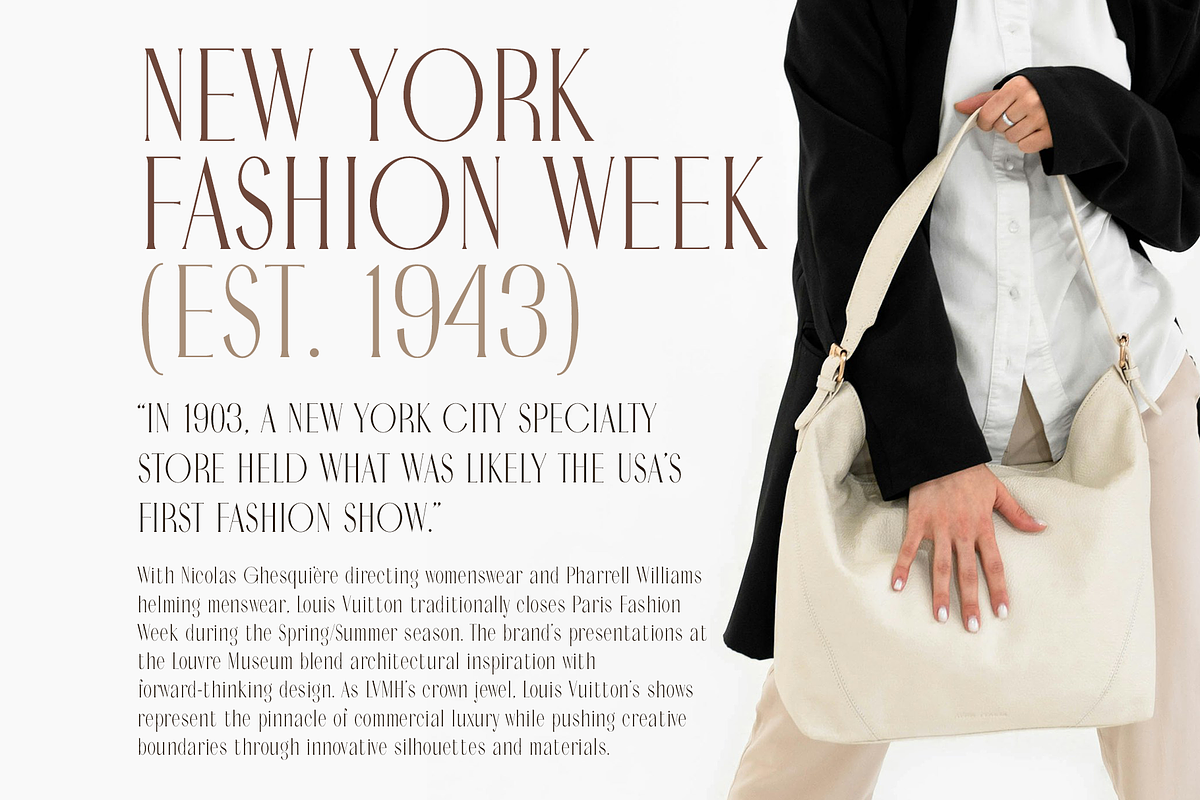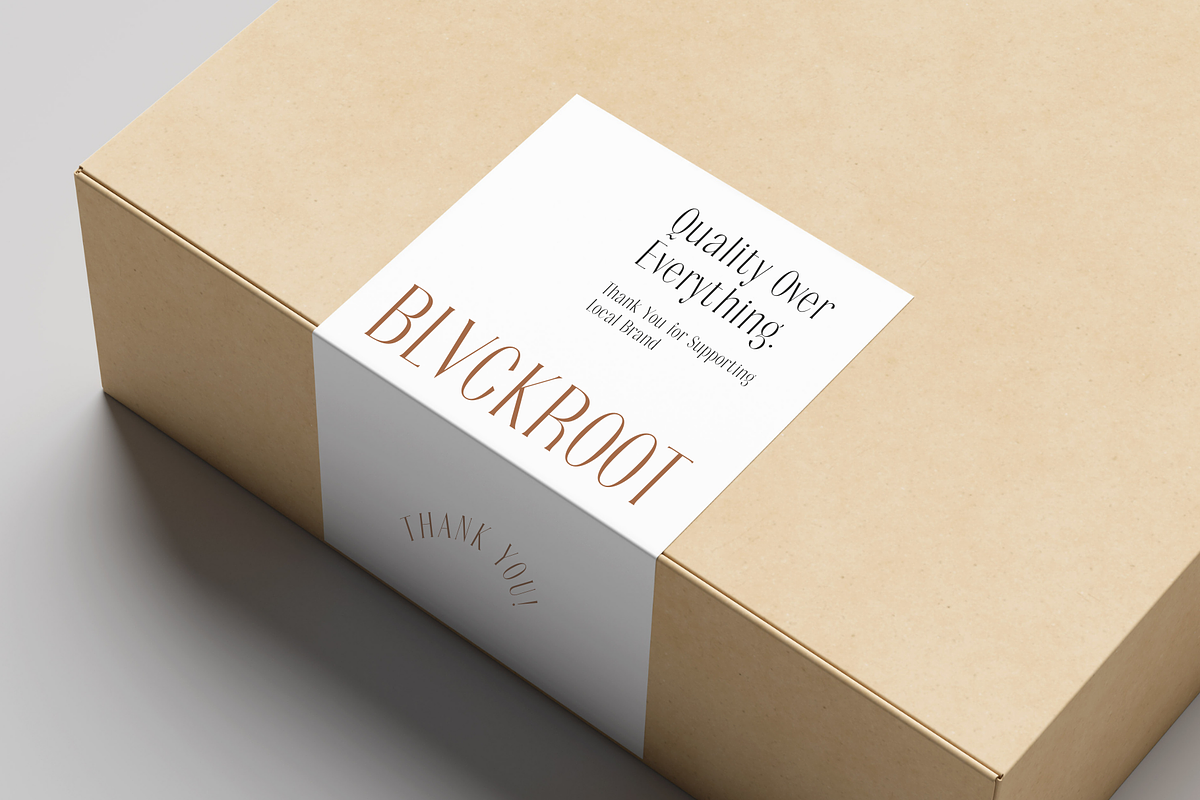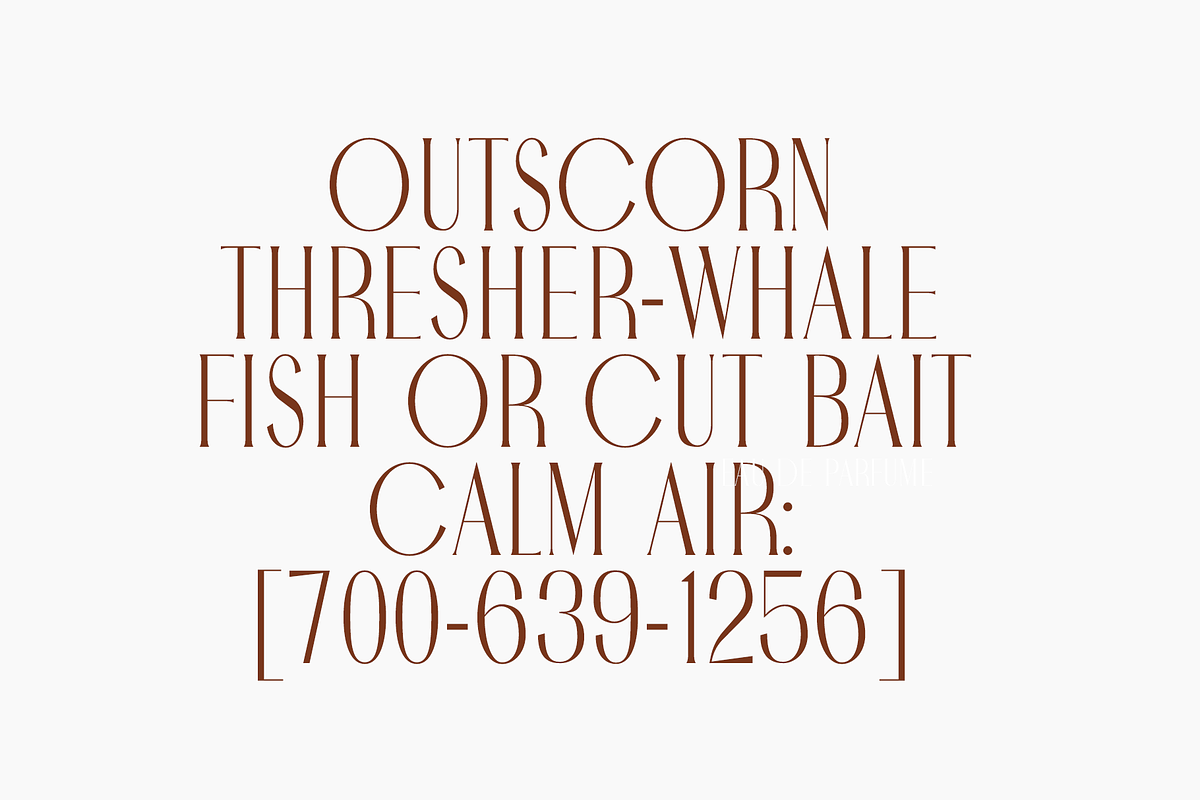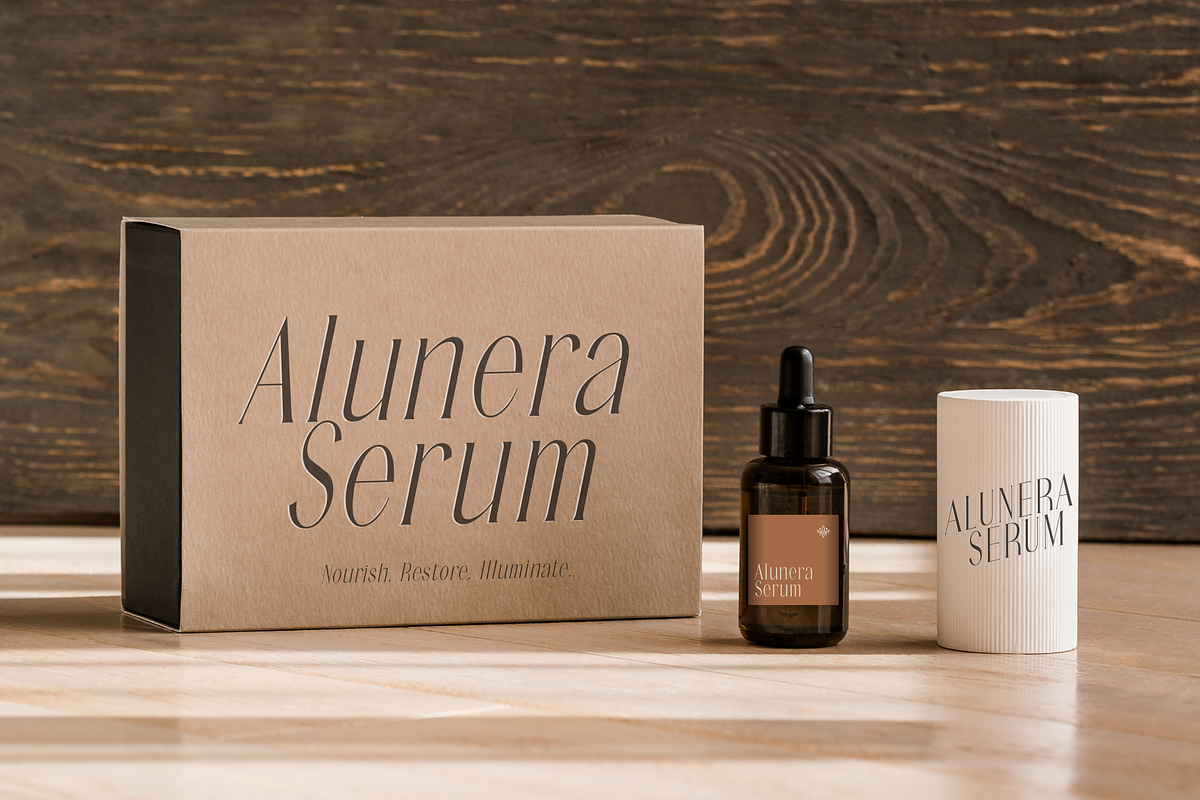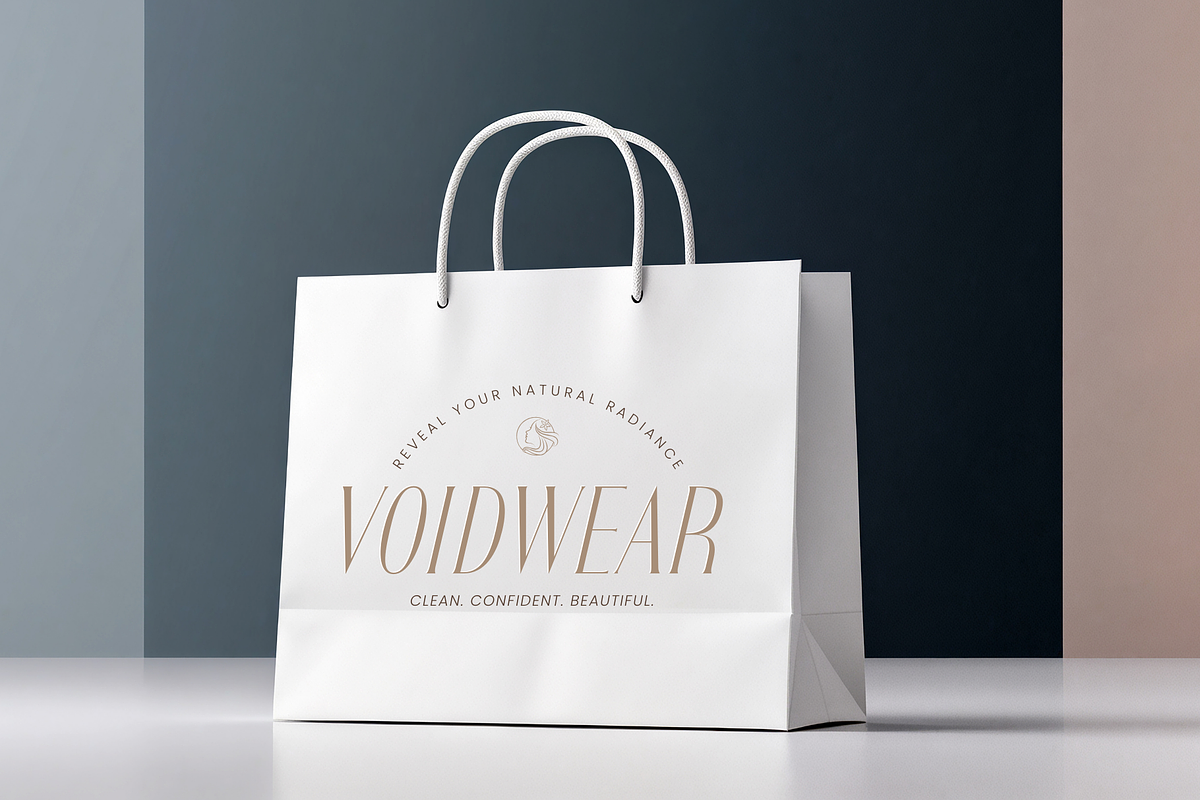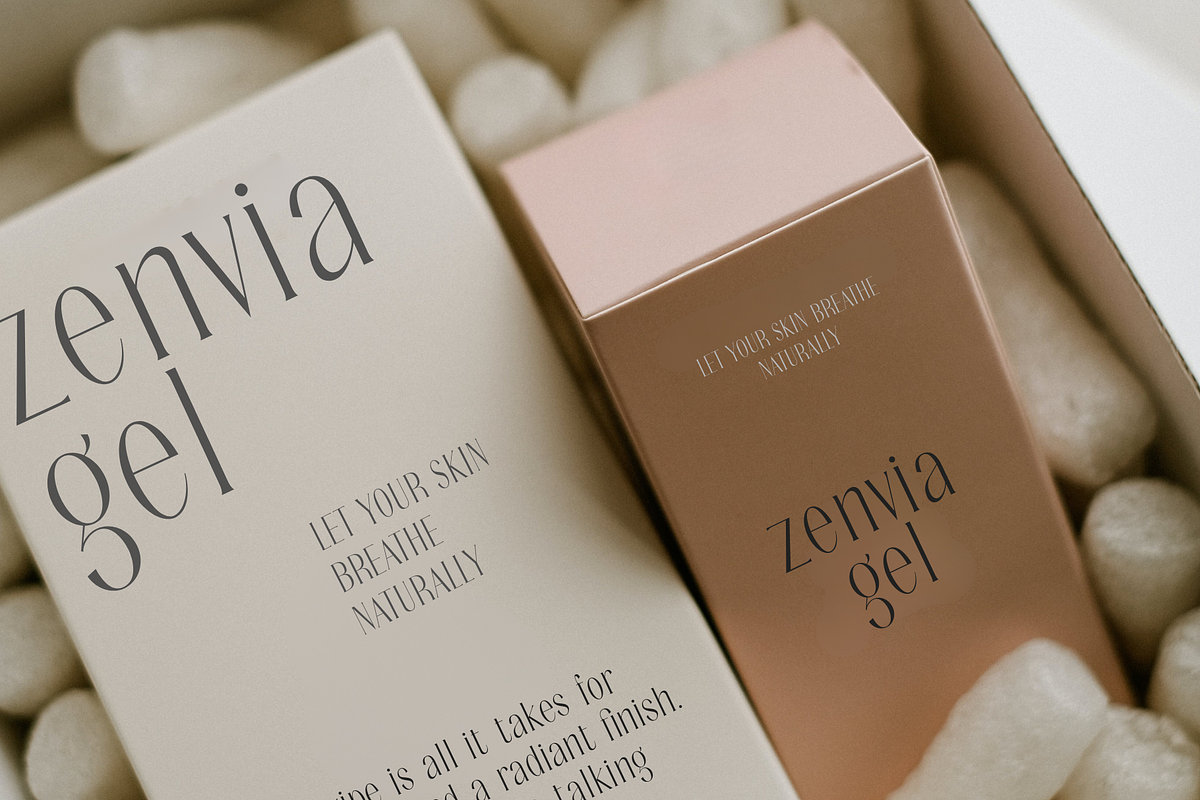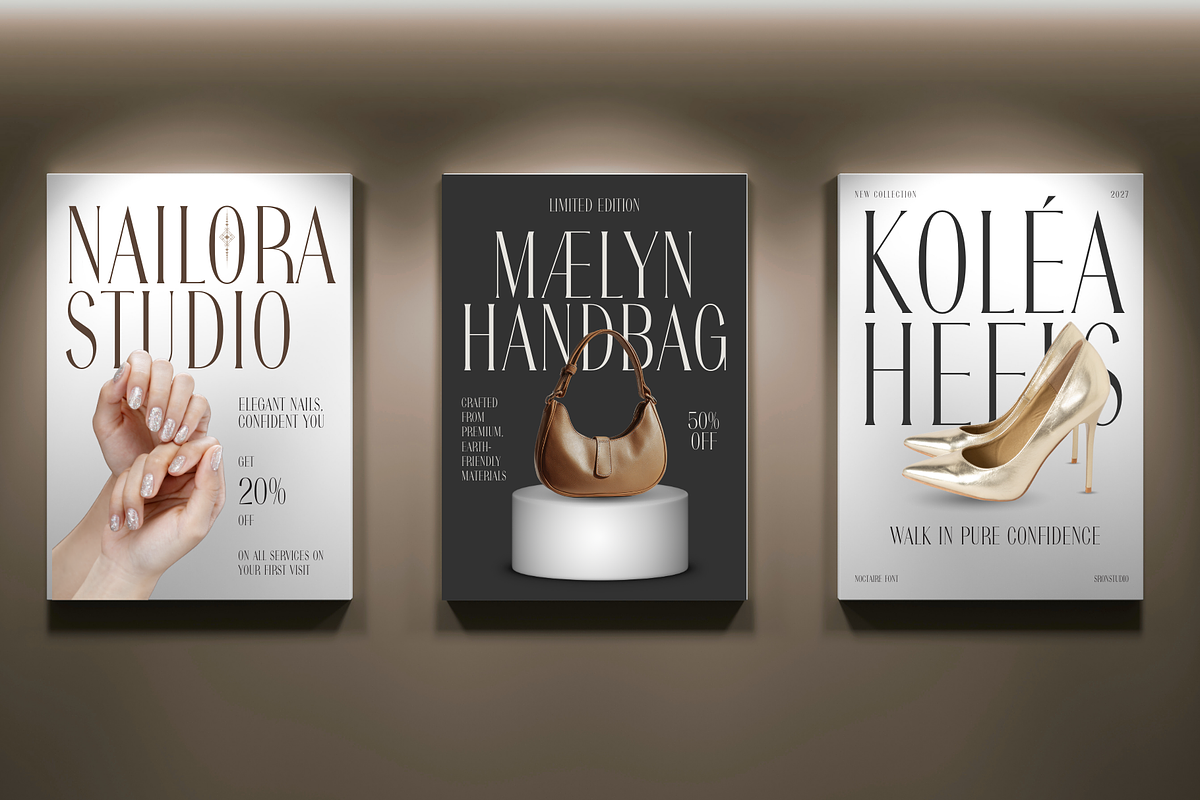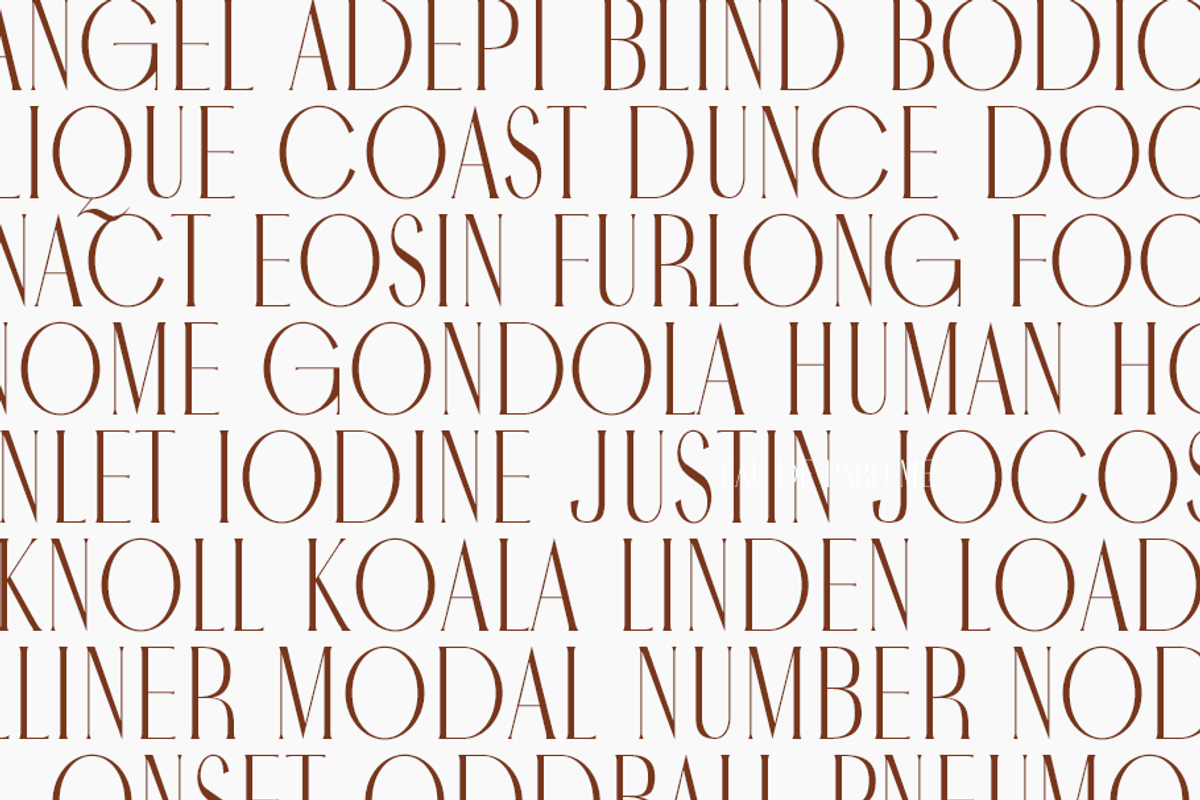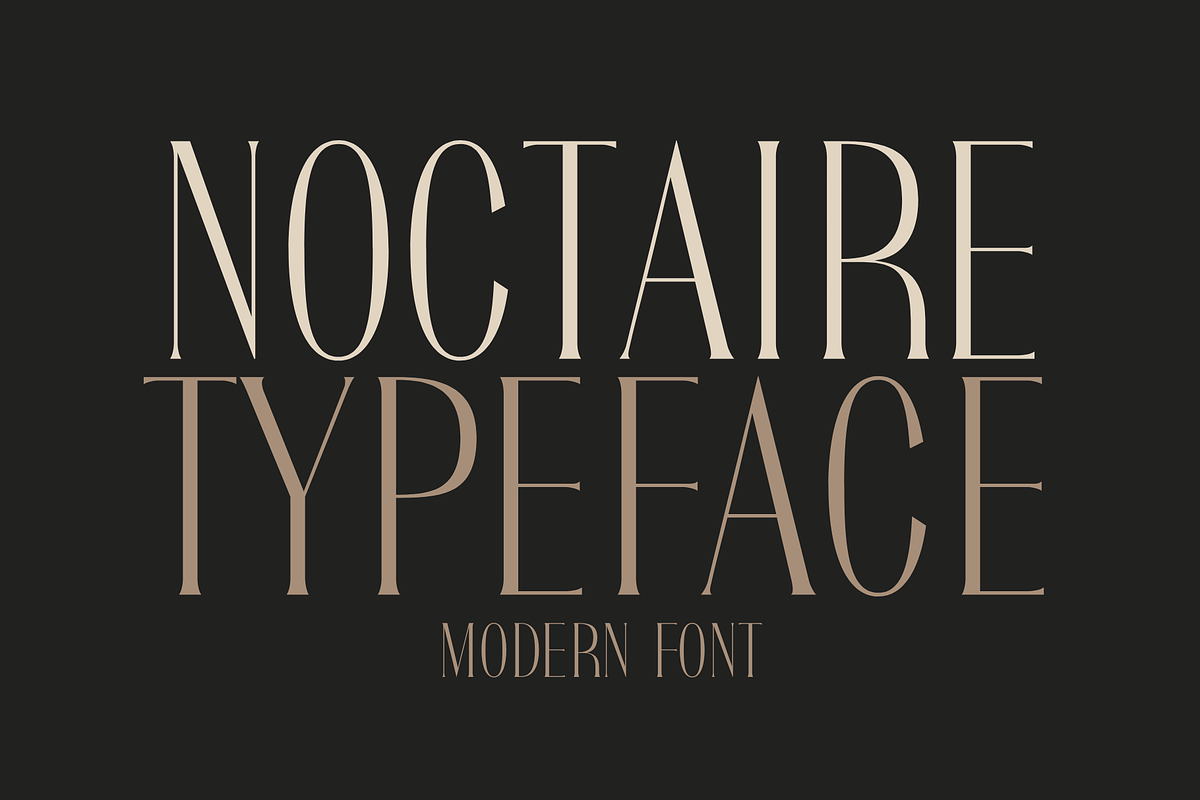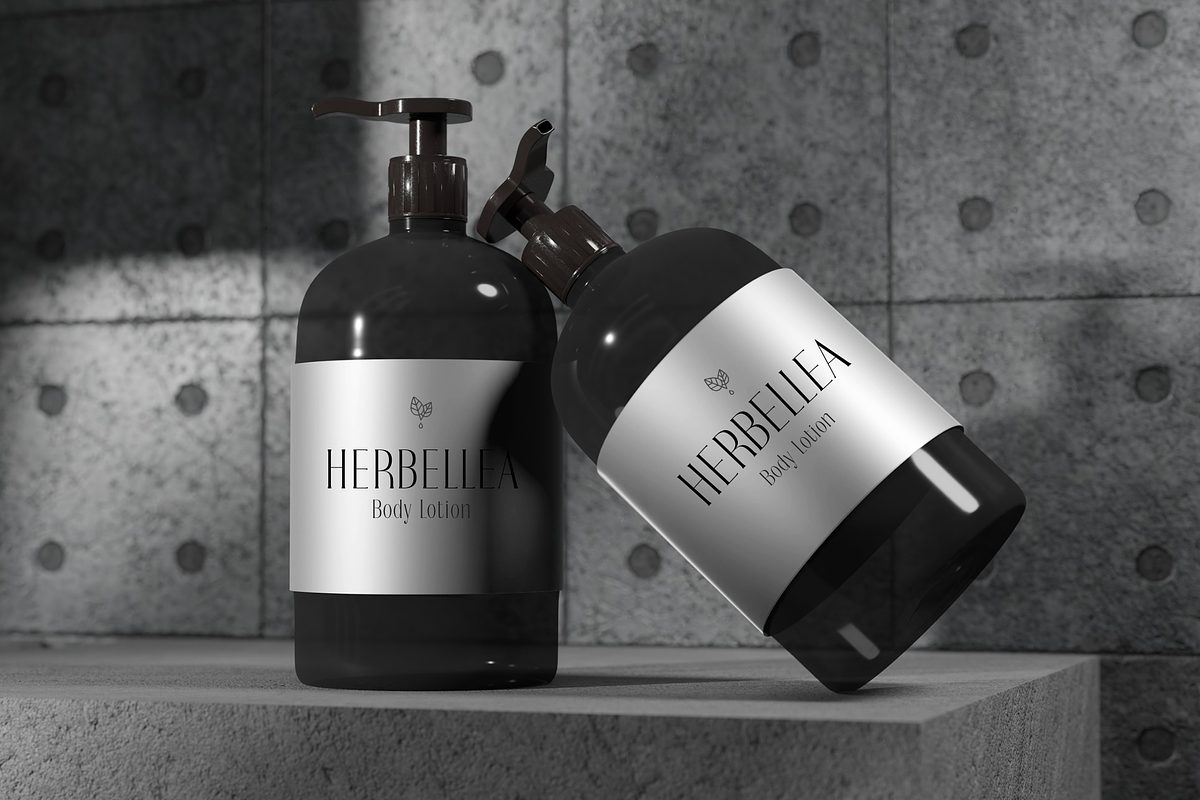
Noctaire - Modern Serif
Noctaire is a modern serif font that blends elegant structure with a contemporary edge. Featuring sharp details and balanced proportions, this font delivers a clean yet sophisticated look. Perfect for branding, editorial design, logos, magazines, and luxury projects, Noctaire adds a refined and timeless character to any modern typography.
- Alternates & ligatures